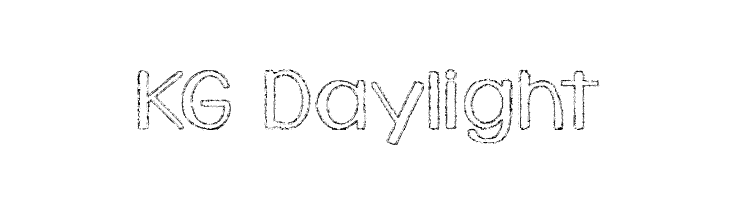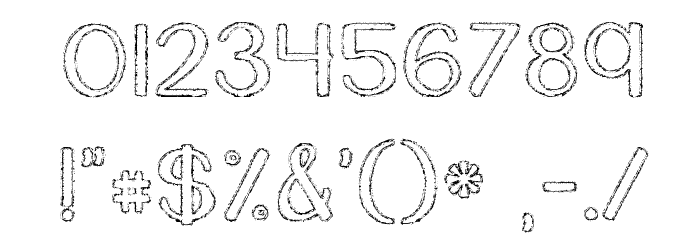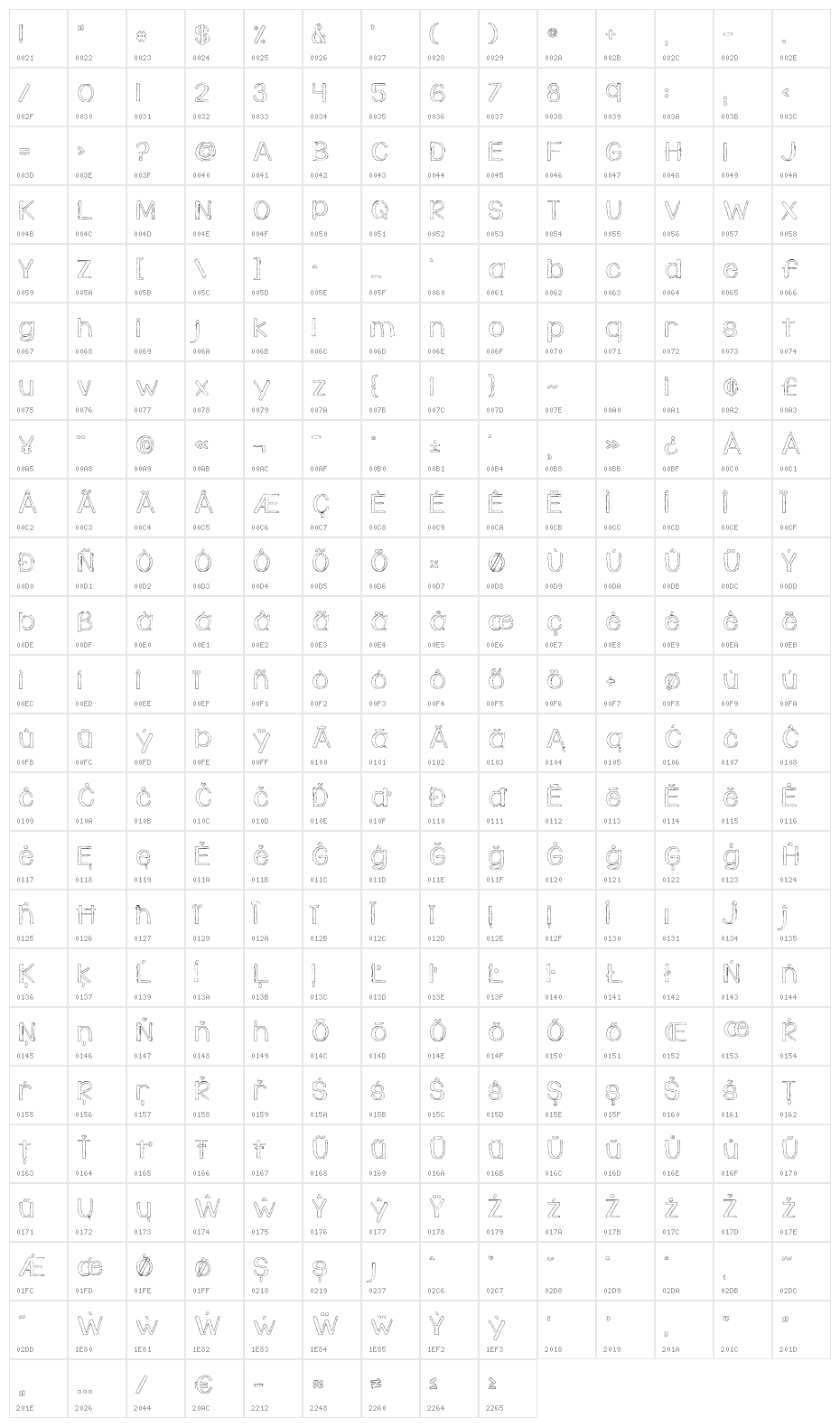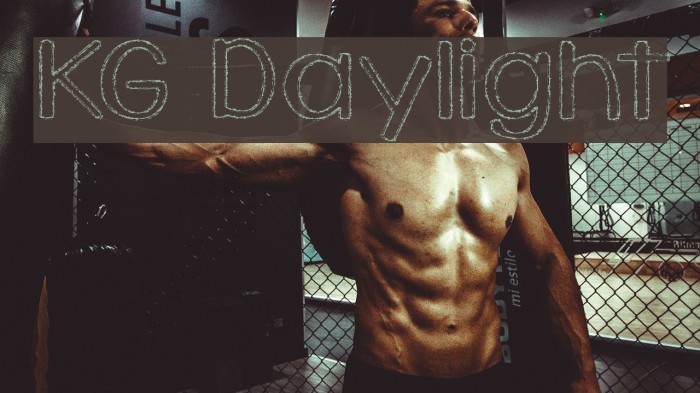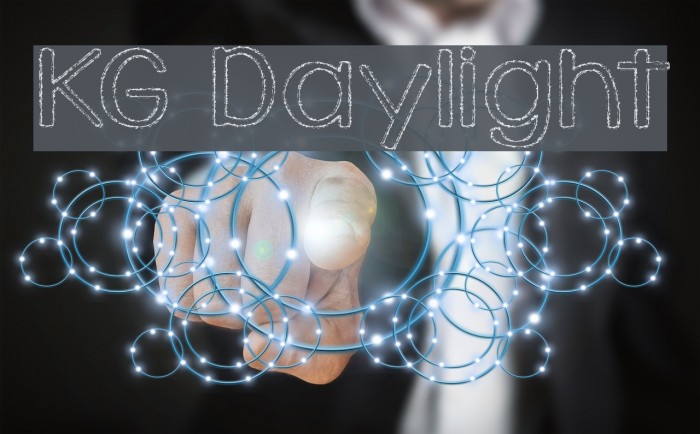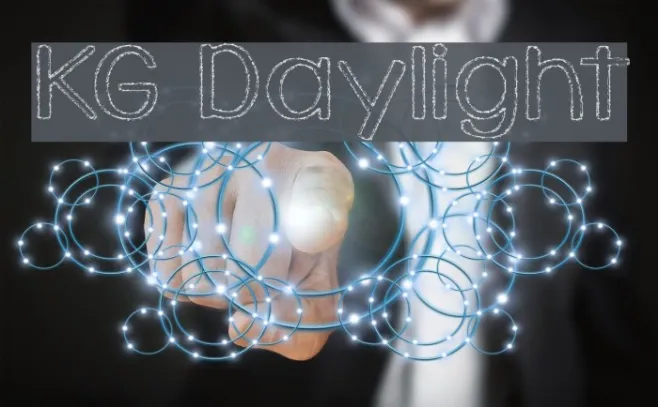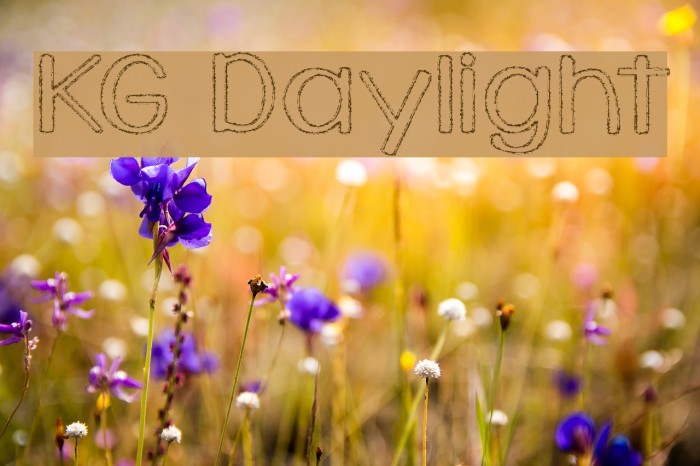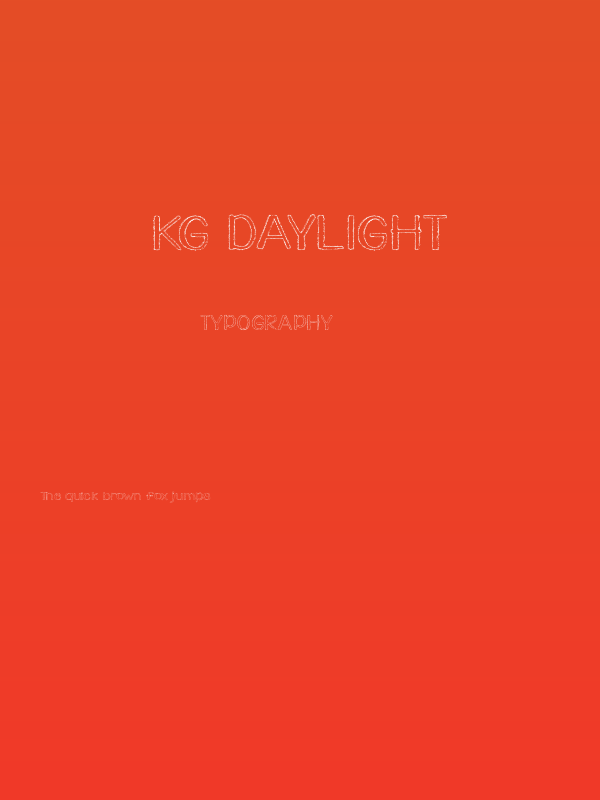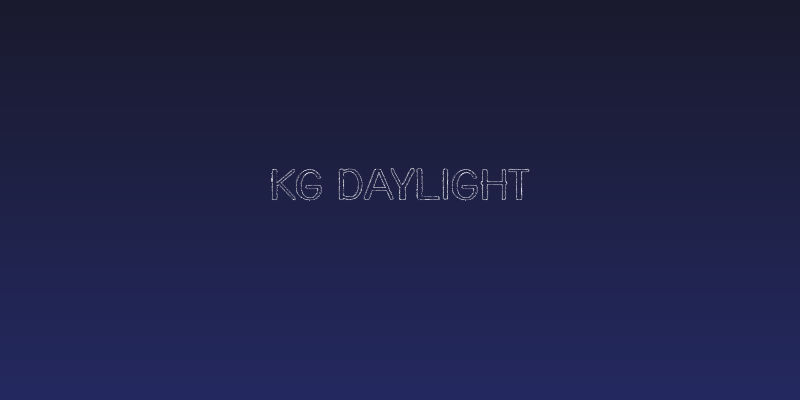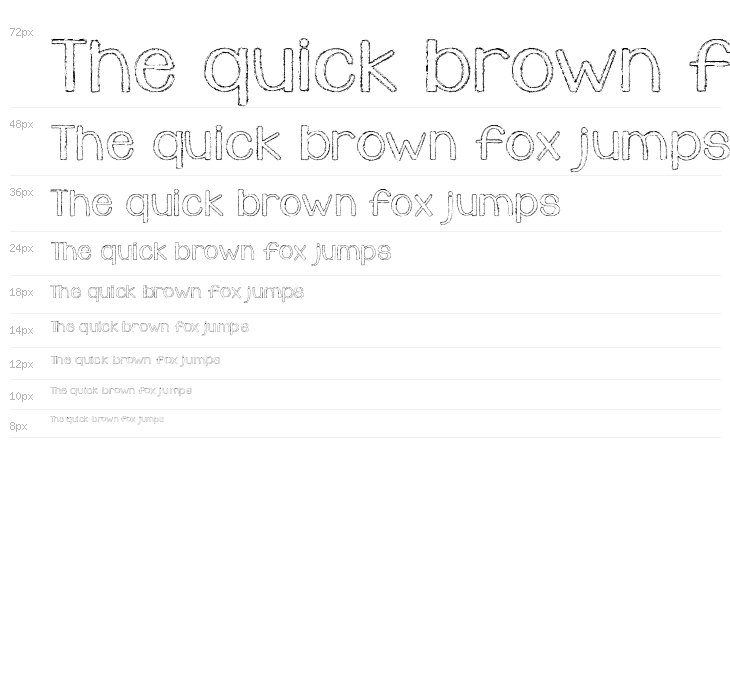
KG Daylight Font
KG Daylight Description
This font features a playful and whimsical design with a hollow, outlined style that gives it a light and airy feel. The characters are rounded and smooth, creating a friendly and approachable appearance. The uppercase and lowercase letters maintain a consistent style, with a slight slant that adds a touch of dynamism. The numerals and special characters are crafted with the same attention to detail, ensuring uniformity across the typeface. This font's unique outline effect makes it stand out, offering a creative twist on traditional sans-serif fonts. Its clean lines and open spaces make it highly legible, even at smaller sizes, while the decorative outline adds visual interest.